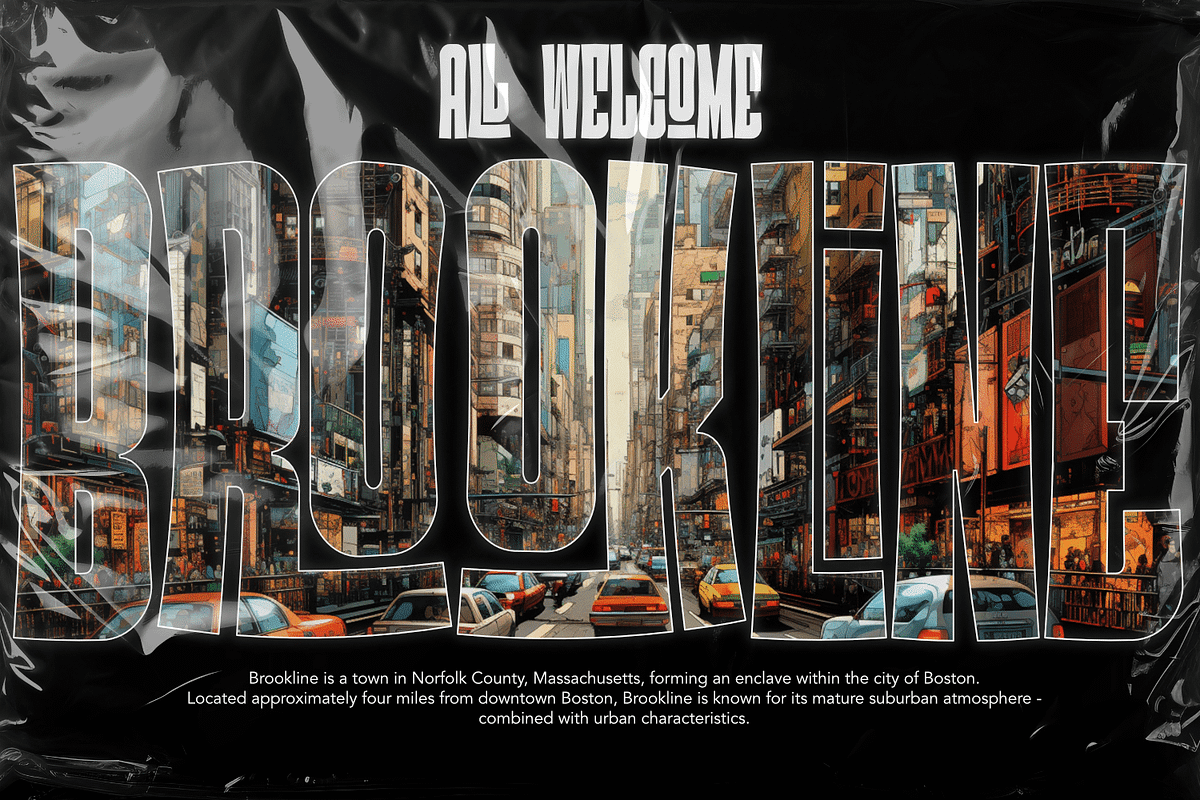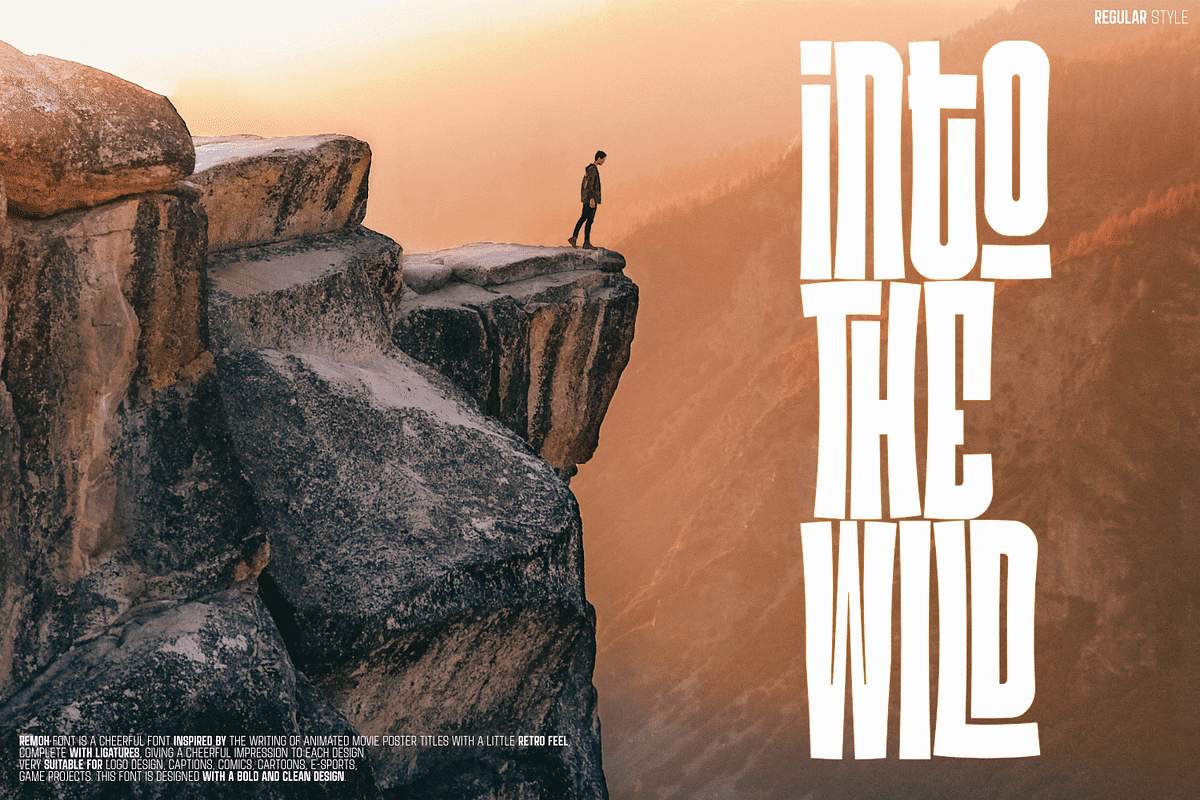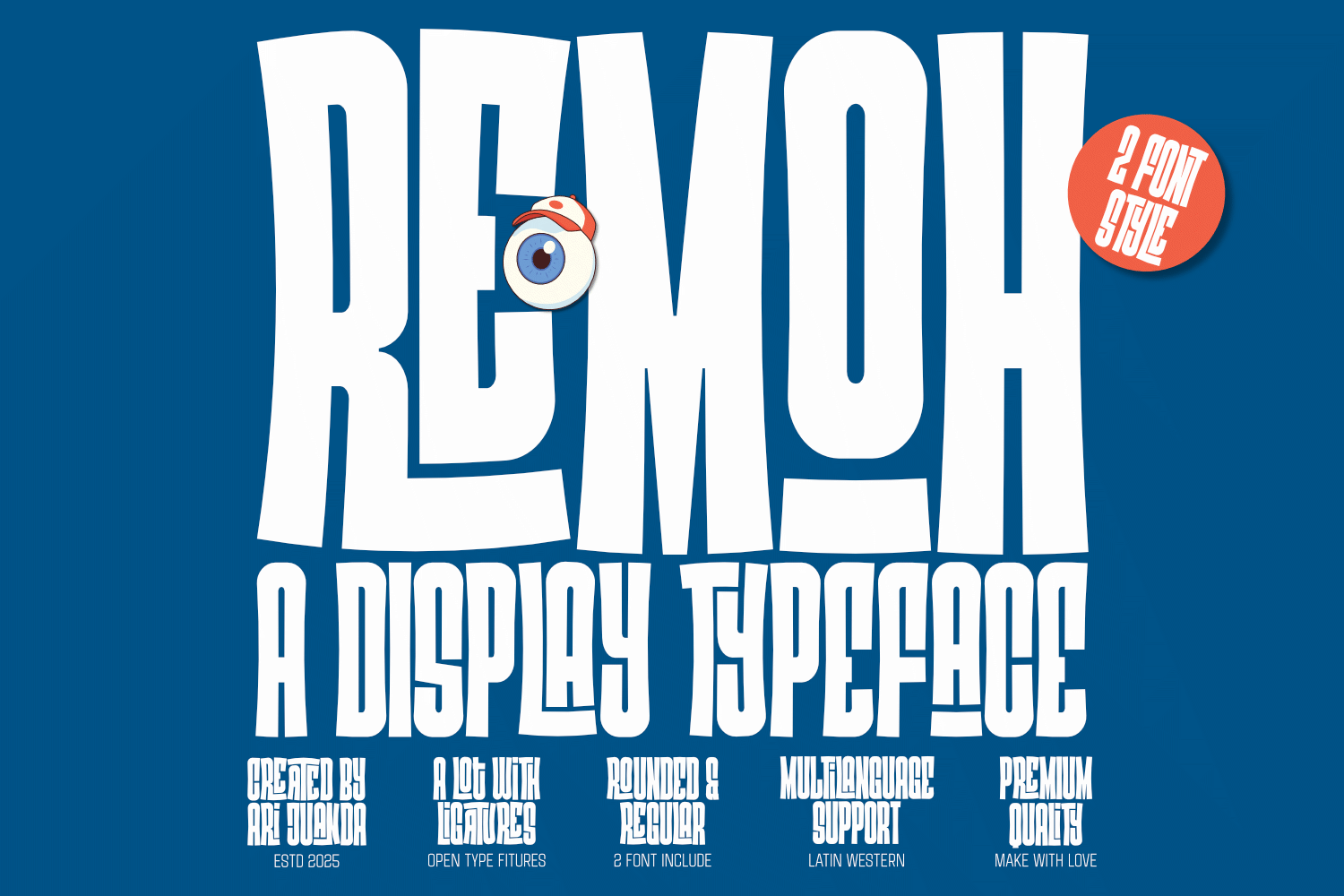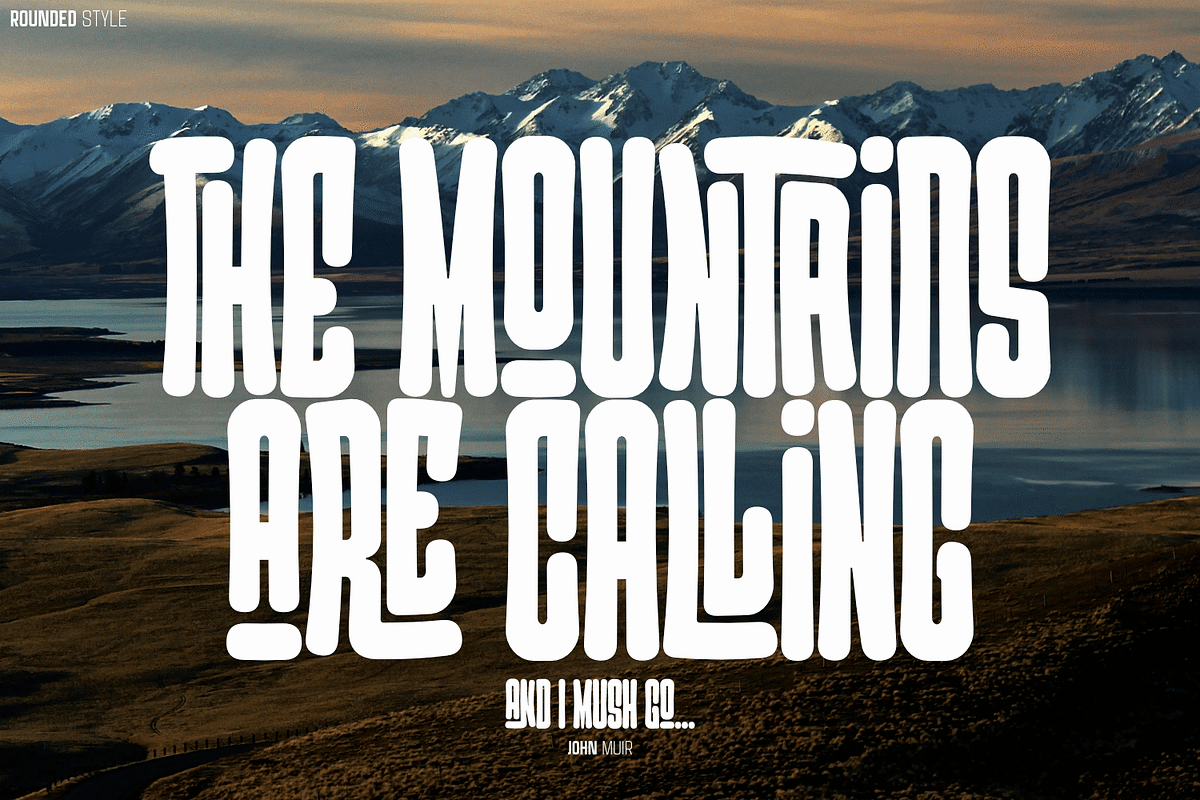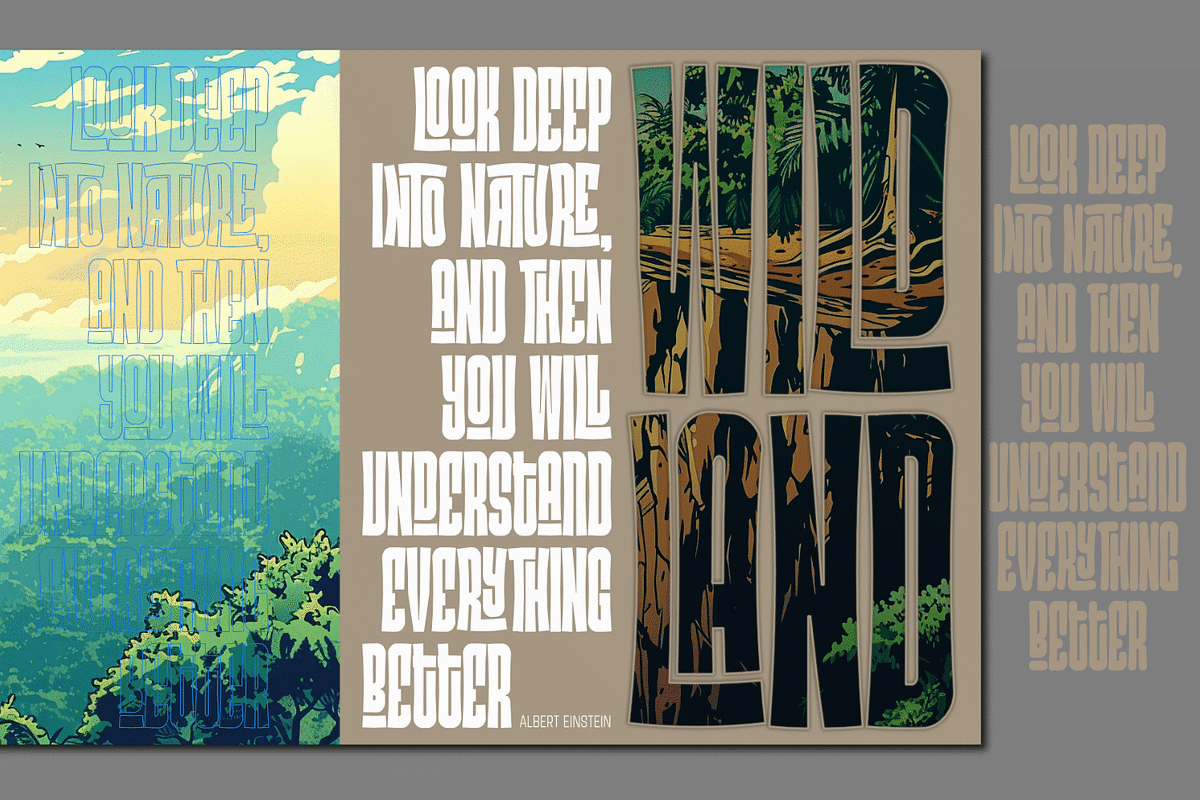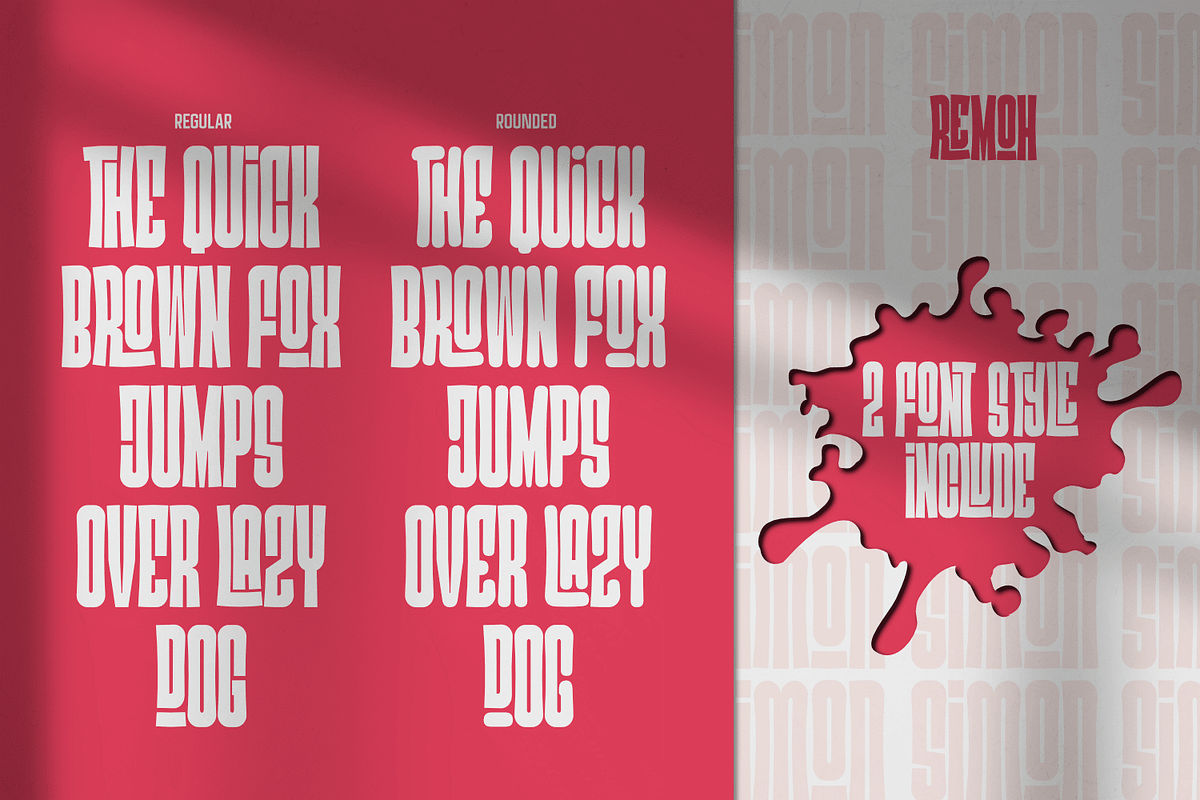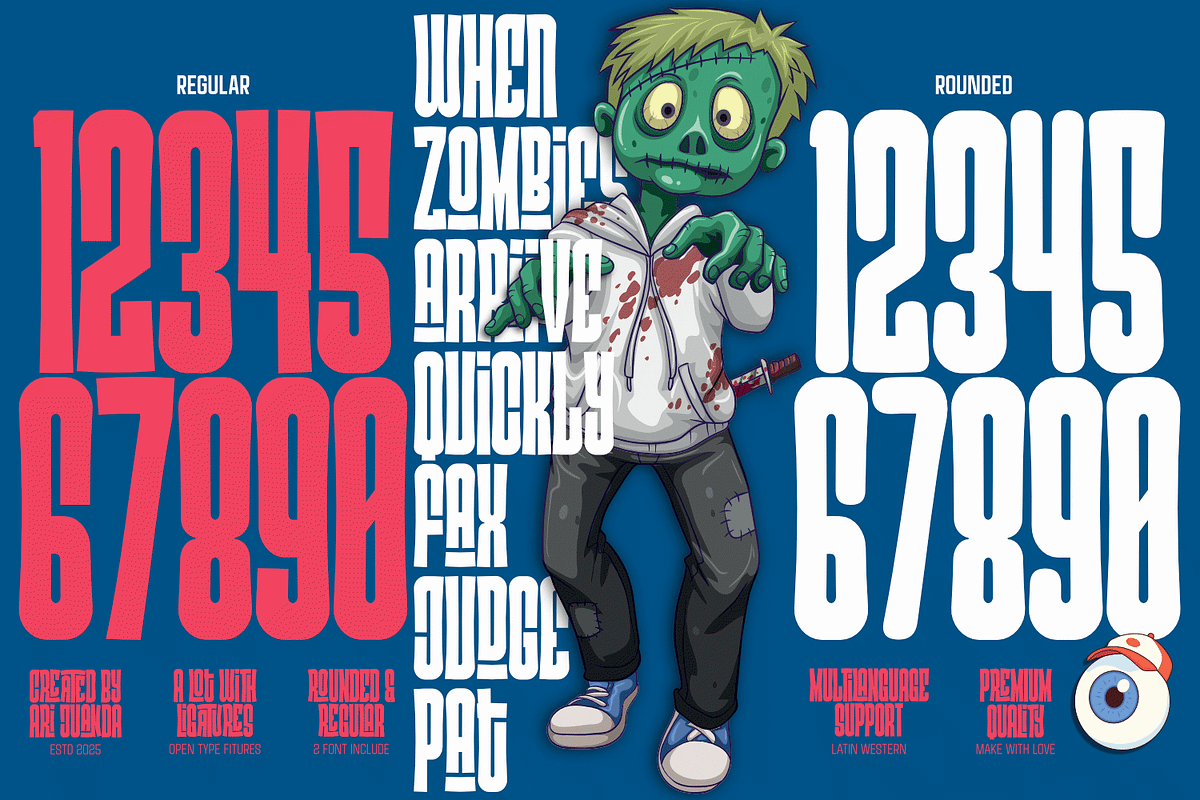
Remoh a typeface
Introducing Remoh regular and Remoh rounded fonts are cheerful fonts font inspired by the writing of animated movie poster titles with a little retro feel, complete with ligatures, giving a cheerful impression to each design. Very suitable for logo design, captions, comics, cartoons, e-sports, game projects. This font is designed with a bold and clean design.
- Numbers and Punctuation
- Ligature Characters
- Supports Multilanguage (Western European Latin)